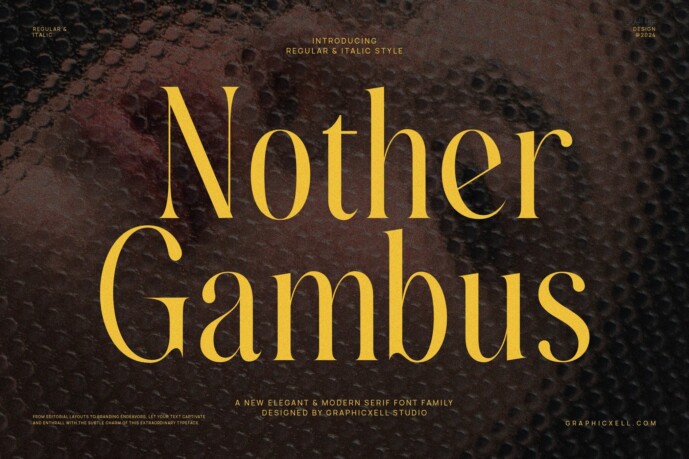
Nother Gambus Family Serif Font Text
Designer: Graphicxell
Nother Gambus is a serif font family with a modern style. Like other serif fonts, Nother Gambus boasts a high level of readability. The font still looks very sharp, even if its size is small. Therefore, Nother Gambus, you can read a long paragraph text like an article using this type of font. Nother Gambus is not only a delicate font that guarantees clear and precise reading, but also gives us a modern and elegant appearance. You can feel an elegant and beautiful stroke from the italic style. The regular font, like the italic, looks very beautiful and has an artistic look with its different weights on each curve of the lines. Last but not least, the Nother Gambus font is undoubtedly widely used for multifaceted businesses. Suppose you can use it for layout design, logo font, a magazine, a headline, branding of any company, and it is also good for the quote font.